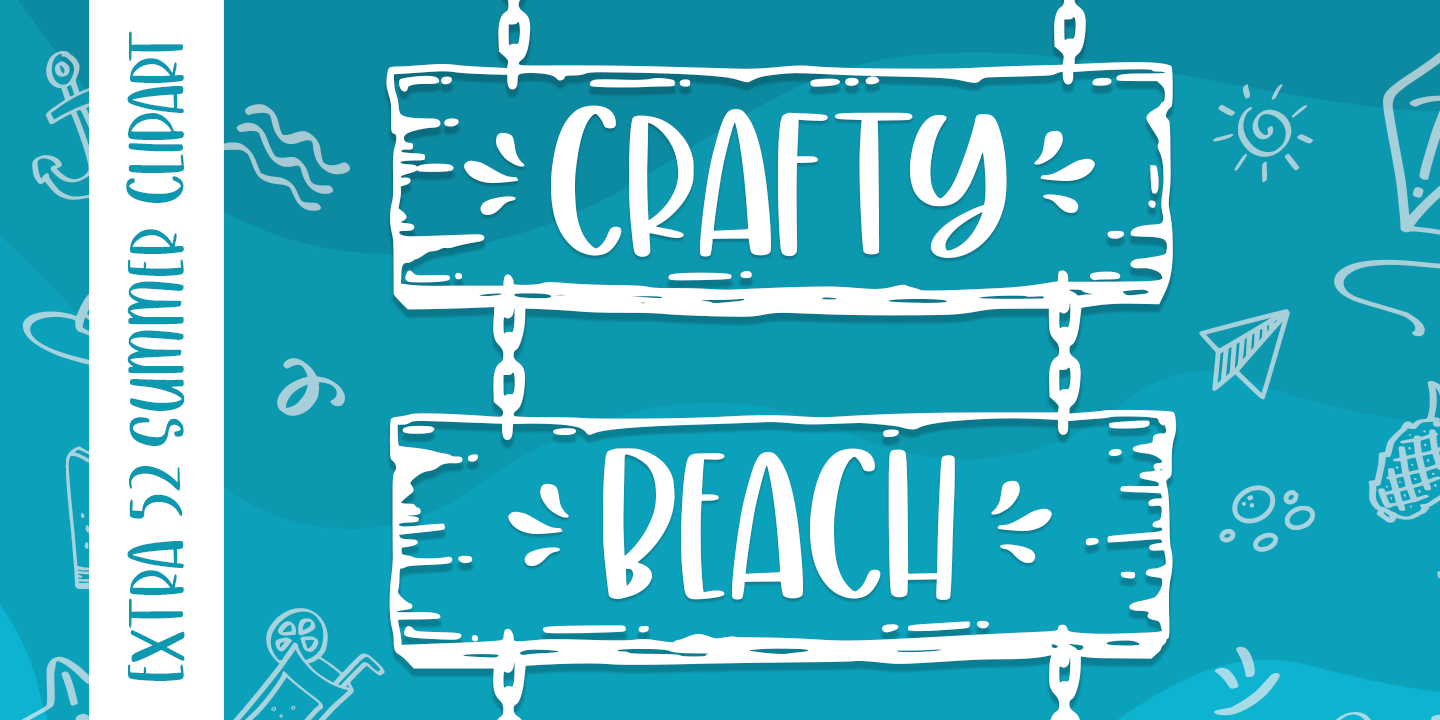
The Crafty Beach Font excels in various design applications including coastal artisan branding, handcrafted beachside boutique signage, creative surf shop marketing, seaside craft fair materials, ocean-inspired DIY project designs, beachcomber treasure packaging, nautical handmade jewelry identities, coastal maker space communications, creative beach resort promotions, and artistic shoreline projects that demand handcrafted coastal charm and creative seaside sophistication.
What makes the Crafty Beach Font exciting is its perfect capture of creative coastal living through letterforms that embody the artistic spirit of beachside craftsmanship and the relaxed creativity found in seaside maker communities. This typeface demonstrates exceptional warmth through carefully crafted characters that suggest driftwood textures, handmade beach treasures, and the creative inspiration that flows from ocean waves and sandy shores. The font's artisanal personality makes it perfect for coastal creators and beachside businesses seeking to communicate handcrafted quality, creative freedom, and the kind of relaxed artistic expression that flourishes in coastal environments through typography that literally feels hand-crafted by the sea.
The Crafty Beach Font family typically includes organic weight variations that enhance the handcrafted aesthetic, featuring relaxed styling options and extended character sets optimized for creative marketing and coastal communications. These family options often include beach-inspired alternates, ocean decorative elements, and artisan symbols that provide designers with comprehensive tools for creating authentically coastal typography that celebrates seaside creativity while maintaining contemporary design appeal and handcrafted authenticity.
Coastal artisans and beachside entrepreneurs consistently choose Crafty Beach Font Free Download for projects requiring typography that communicates creative coastal living and handcrafted seaside quality. This typeface delivers exceptional performance in coastal marketing, artisan branding, and creative communications where establishing authentic handmade appeal and celebrating beach lifestyle creativity is essential for community connection. The font's crafty character makes it particularly effective for DIY and maker applications. Download Crafty Beach Font Free Download today to access this creative typeface that transforms coastal communications with its handcrafted charm and seaside sophistication, creating compelling beach experiences that honor the artistic spirit of coastal living while celebrating the creative freedom that makes beachside craftsmanship so uniquely inspiring and authentically satisfying.